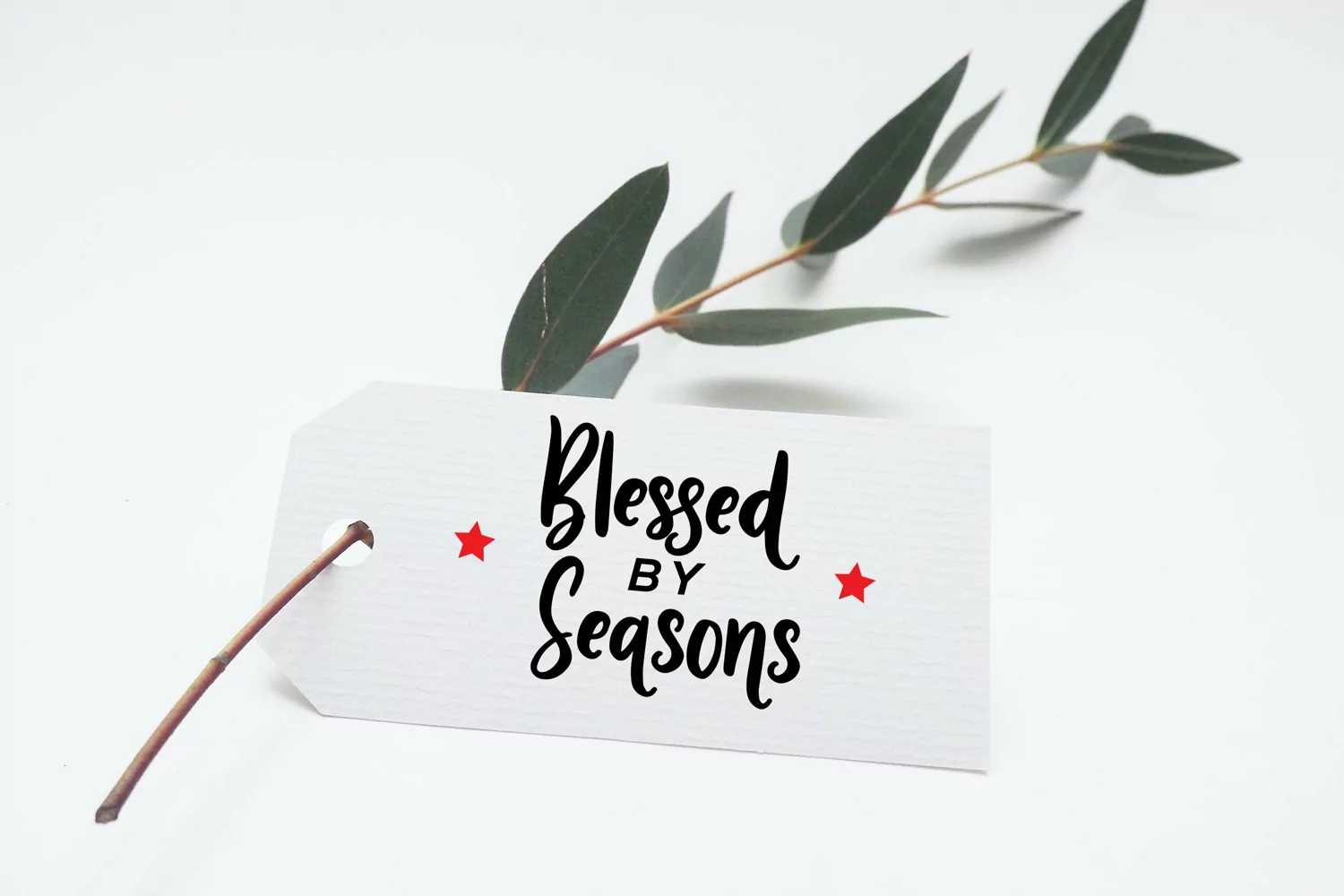
Greet The Seasons - Holiday Greeting Font that contain lowercase, uppercase, symbol, and also support multi language. There’s a lot ligatures in this font. This Font also comes with ligatures, alternates and many more. this font suitable for fashion, branding, catalog and other design what you want.